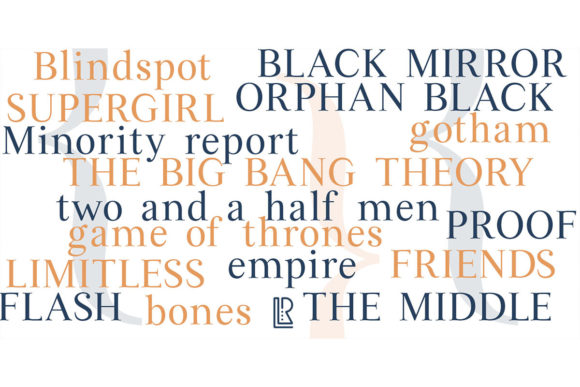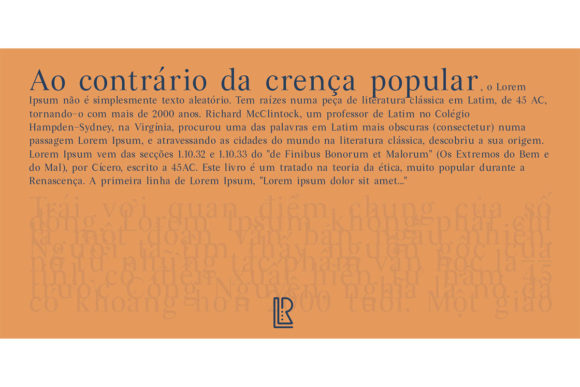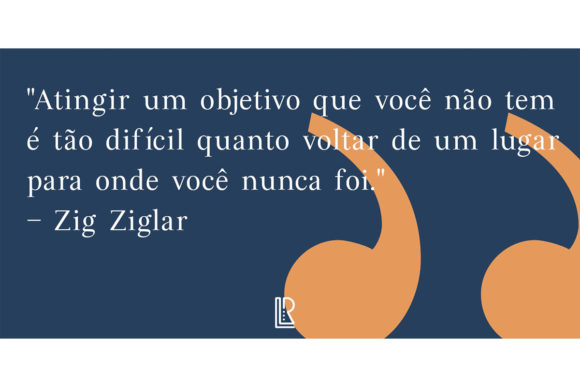
Introduction to Infiilus Font
Have you ever found yourself stuck on a creative project, desperately searching for the perfect font to bring your vision to life? That’s where the Infiilus Font comes in – a game-changing serif font that’s as adaptable as it is stylish. Whether you’re designing a business report or crafting a poster for a local event, this font has got you covered.
What sets Infiilus apart from other design resources is its versatility and high quality. With a transparent background, this font can seamlessly blend into any design, making it the perfect choice for corporate design, magazines, and even multimedia projects. And the best part? It’s available for free download, making it an invaluable asset for designers of all levels.
Key Features of Infiilus Font
- Features a transparent background, allowing for effortless customization and blending with any design element.
- Designed with precision and attention to detail, resulting in a crisp and clear font with high resolution.
- Supports various languages, ensuring its versatility and broad appeal.
- Perfect for designers, artists, and writers seeking a reliable and high-quality design resource for their creative projects.
Honest Review: Infiilus Font
I recently had the chance to try out the Infiilus Font, and I must say it’s been a game-changer for my creative project. As a designer, I’m always on the lookout for high-quality design resources that can elevate my work, and the Infiilus Font definitely delivers.
One of the things I love about the Infiilus Font is its versatility. It comes in a range of styles, from bold and playful to elegant and sophisticated, making it perfect for a wide range of creative projects. The font is also incredibly easy to use, with a transparent background that makes it seamless to work with.
- Range of styles to suit different design needs
Overall, I’m really impressed with the Infiilus Font and would highly recommend it to designers looking for a high-quality design resource for their creative projects.
Common Use Cases for Infiilus Font
Infiilus Font is perfect for use in logos, branding materials, and other design projects where a high-quality, unique font is needed. Its transparent background makes it ideal for use on images and graphics, and its creative design makes it perfect for use in creative projects.